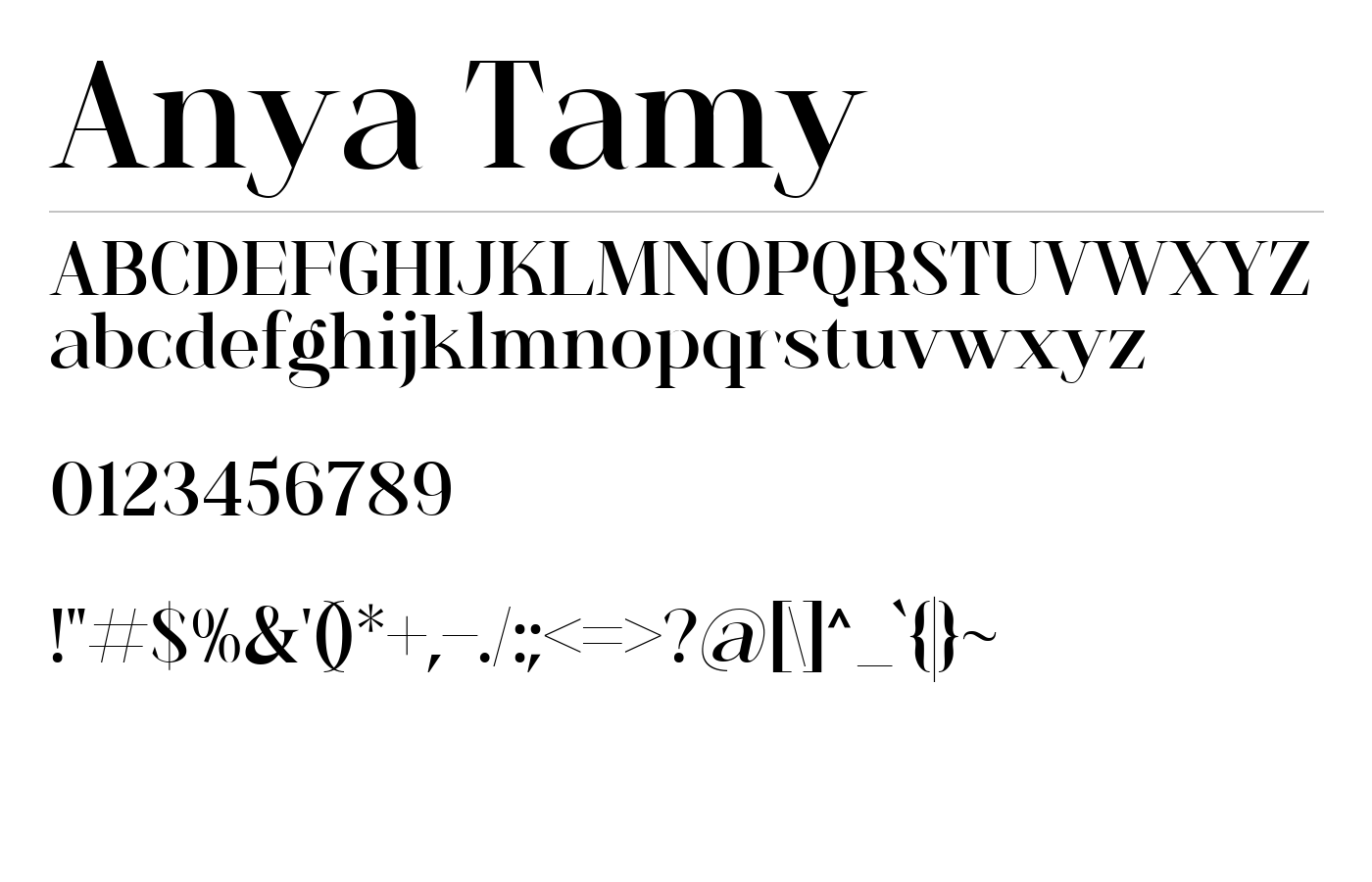
Anya Tamy is an elegant serif font characterized by its high contrast between thick and thin strokes, sharp bracketed serifs, and refined, slightly condensed letterforms. Its classic yet stylish design makes it ideal for luxury branding, editorial headlines, and sophisticated packaging, lending a timeless and polished look to any project. This font combines a modern luxury feel with traditional serif elegance, perfect for brands seeking both authority and charm.
Anya Tamy Font
About Anya Tamy Font